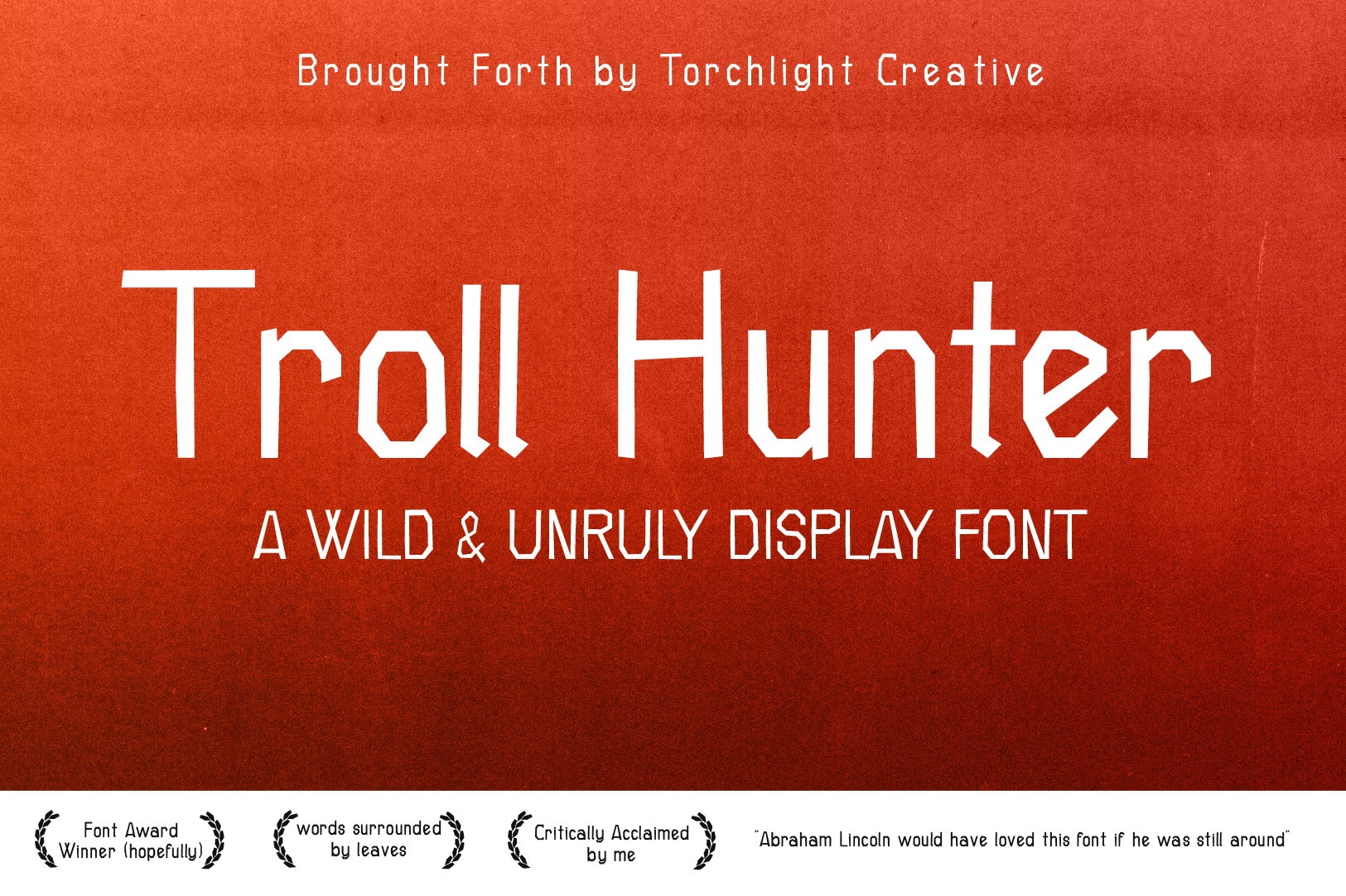
Troll Hunter Display Font
The perfectly imperfect display font to use on your adventures. Take it out for a spin to tell your stories and inspire others to do the same.
Meant to be stretched, compressed, pushed, pulled and anything else you can think of to make it your own.